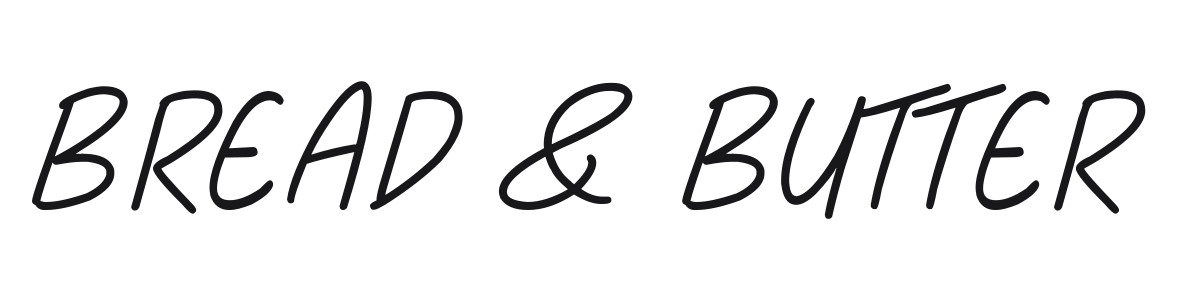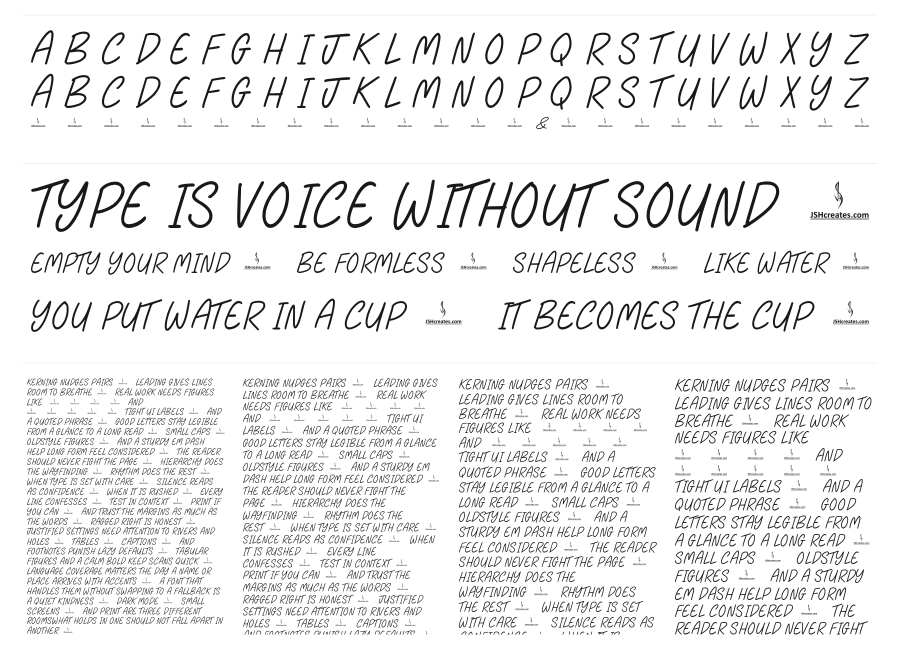
Bread & Butter
by JSH creates · Website
Bread & Butter is a casual handwritten script with a natural italic lean and thin monoweight strokes that evoke quick, confident pen writing. The loose, flowing connections between letters give it an unforced warmth that feels personal without trying too hard. It works well at large sizes for logos, packaging, and headline use where a human touch is wanted.